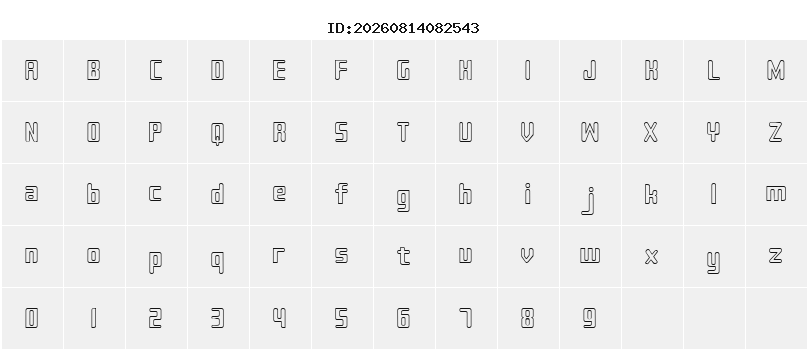
Sujeta Outline Preview
• Font Name: Sujeta Outline
• Full Font Name: Sujeta Outline
About Sujeta Outline.ttf
Sujeta Outline.ttf is a modern, elegant sans-serif font designed for ultimate readability and visual harmony. Perfect for branding, headlines, web design, and print materials.